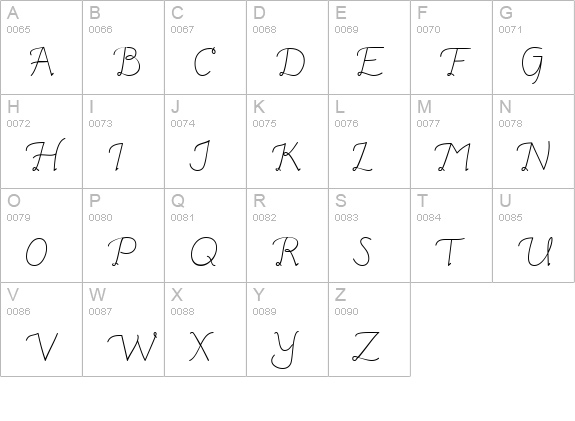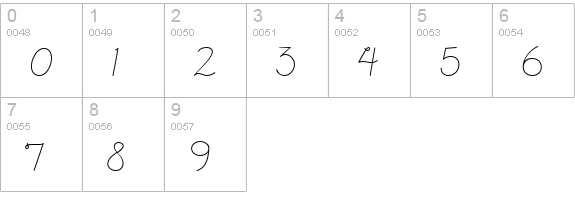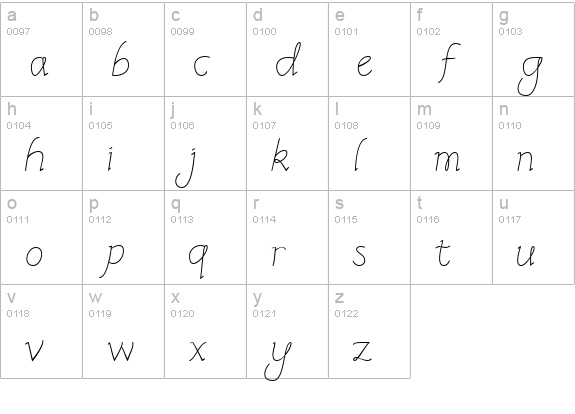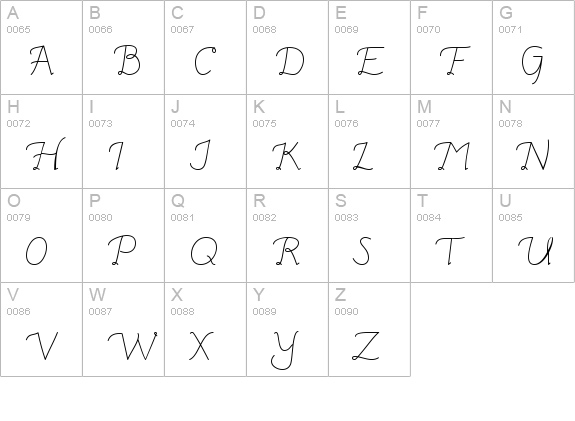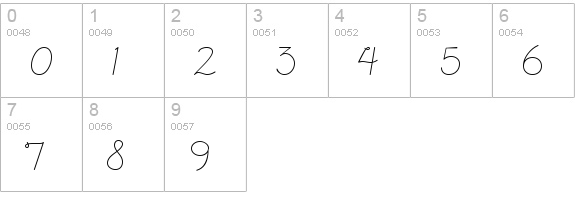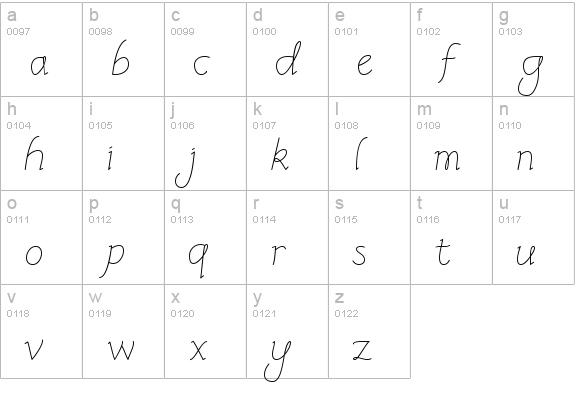
CK Italic Font Details
CK Italic is a distinctive, italic variant in the CK typeface family \xE2\x80\x94 well suited to design and typography projects.
Introducing CK Italic font, a stylish and versatile typeface that exudes elegance and sophistication. With its sleek curves and modern design, this font is perfect for adding a touch of class to any project. Whether you're designing a logo, creating a poster, or crafting a website, CK Italic font is sure to make a lasting impression. The best part? CK Italic font is completely free to download at FontsMarket.com. Simply visit the website and start using this beautiful font in your designs today. Don't miss out on the opportunity to enhance your work with the timeless beauty of CK Italic font. Download it now and let your creativity shine!